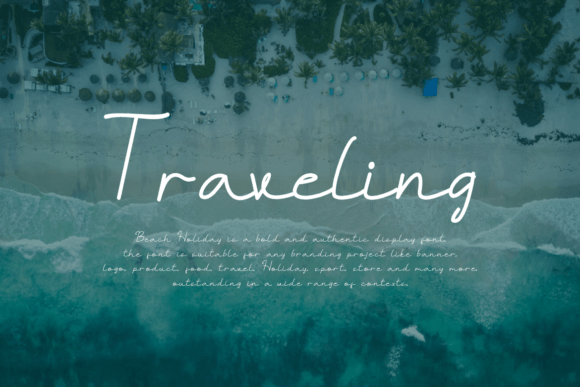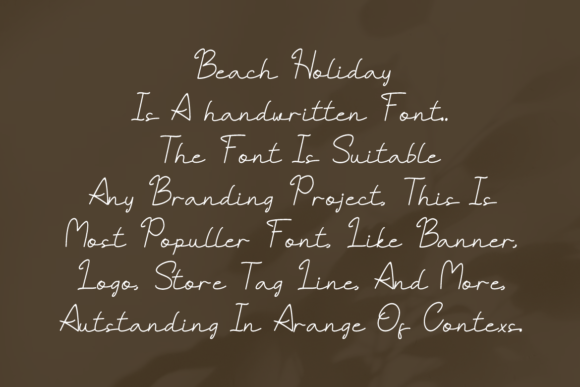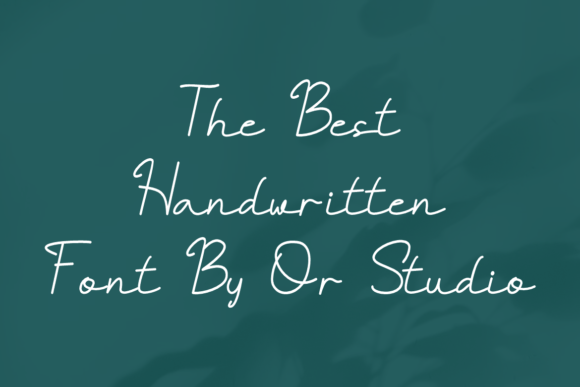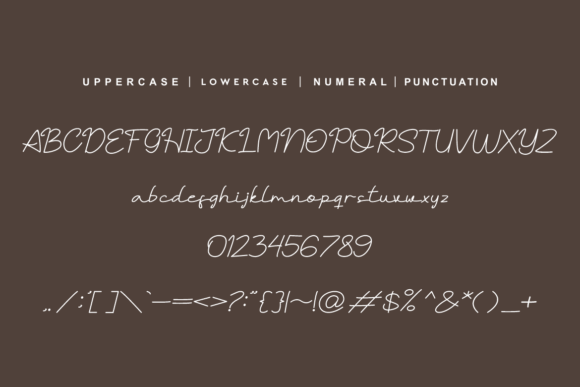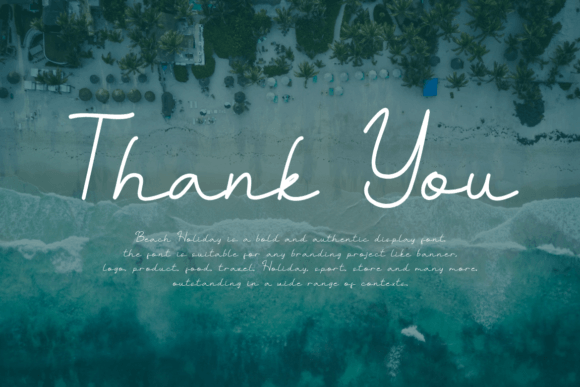
Escape to Serenity with the Beach Holiday Font
There’s nothing quite like the feeling of stepping onto the sand, feeling the warm breeze on your skin, and listening to the soothing sound of the waves. It’s moments like these that spark our creativity and inspire us to create something truly special. As designers, we’re always on the lookout for the perfect font to capture that feeling and bring it to life. That’s where the Beach Holiday Font comes in – a sweet and cursive handwritten font that’s sure to transport your audience to a state of serenity.
This gorgeous font is perfect for adding a joyful and romantic touch to your designs. Whether you’re creating a wedding invitation, a travel brochure, or a social media post, the Beach Holiday Font is sure to make it stand out. Its gentle curves and playful feel make it a valuable addition to any designer’s toolkit, and its versatility ensures that it will look great on a variety of design ideas.
- Unique Characteristics: Beach Holiday Font features a unique, hand-drawn design with a relaxed, beachy feel, making it perfect for creating a laid-back and casual atmosphere in your designs.
Beach Holiday Font Review
Overall, I think Beach Holiday Font has a lot of potential, but it’s not without its flaws.
- The font’s carefree and playful vibe is perfect for summer-themed designs or travel-related projects.
- The varied letterforms and ligatures add a nice touch of personality to the font.
- The font’s bold and italic styles are well-designed and add depth to the overall typeface.
- The font’s lowercase letters can sometimes be difficult to read, especially at smaller sizes.
- The font’s kerning can be inconsistent, leading to awkward spacing between certain letter combinations.
- The font’s limited character set may not be suitable for projects that require a wide range of special characters.
Overall, I would give Beach Holiday Font 3.5 out of 5 stars. While it’s a fun and creative font, its limitations hold it back from being a truly top-notch typeface. With some tweaks to the kerning and character set, I think this font could be a real winner.
The “Beach Holiday Font” is perfect for:
Designing beach-themed promotional materials.
Creating summer-themed social media posts.
Adding a tropical touch to wedding invitations or event materials.
To get the most out of the “Beach Holiday Font”, try:
Combining it with tropical colors and patterns.
Using it for headings and titles to add emphasis.
Experimenting with different font sizes and styles to create visual interest.